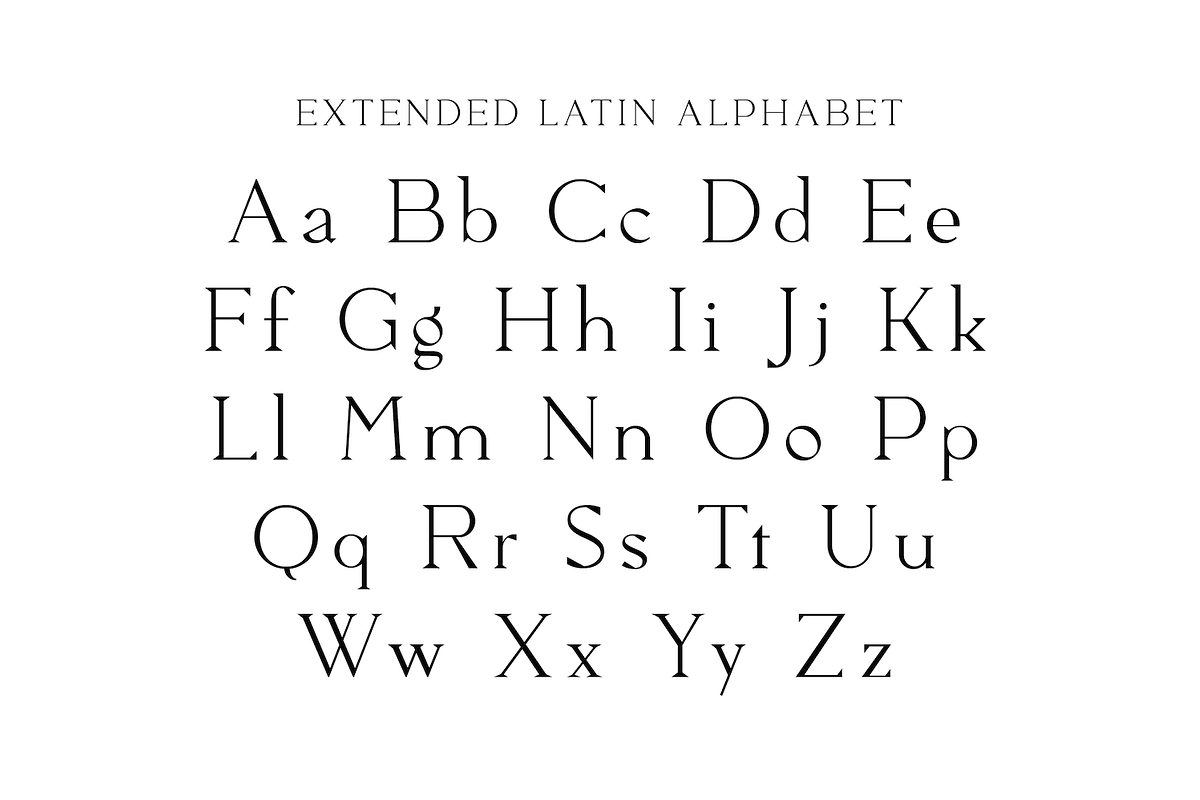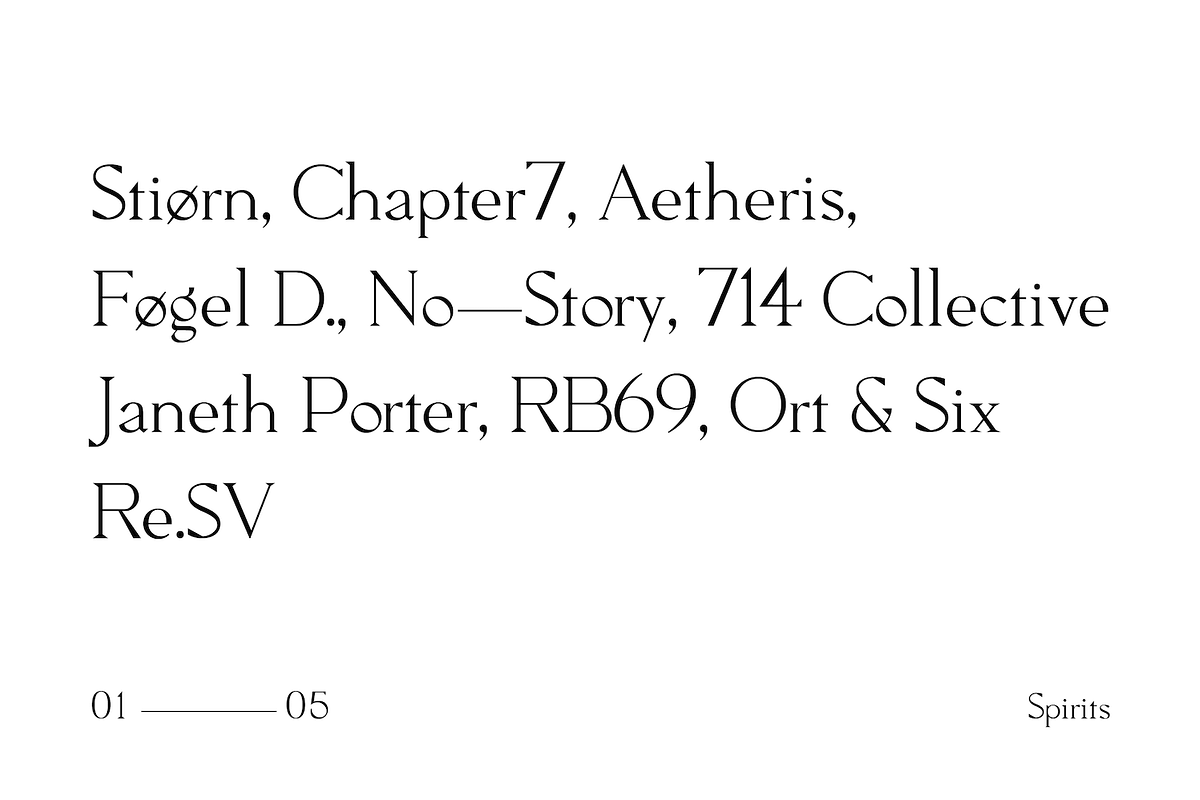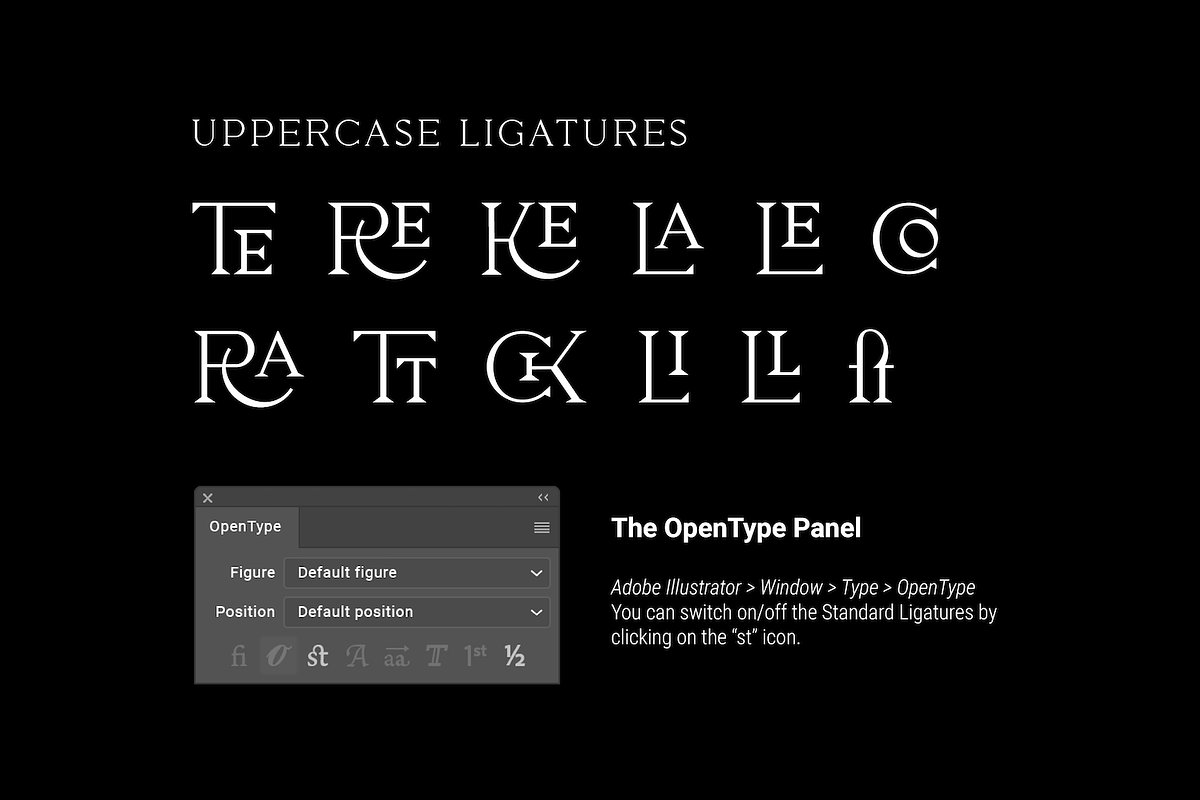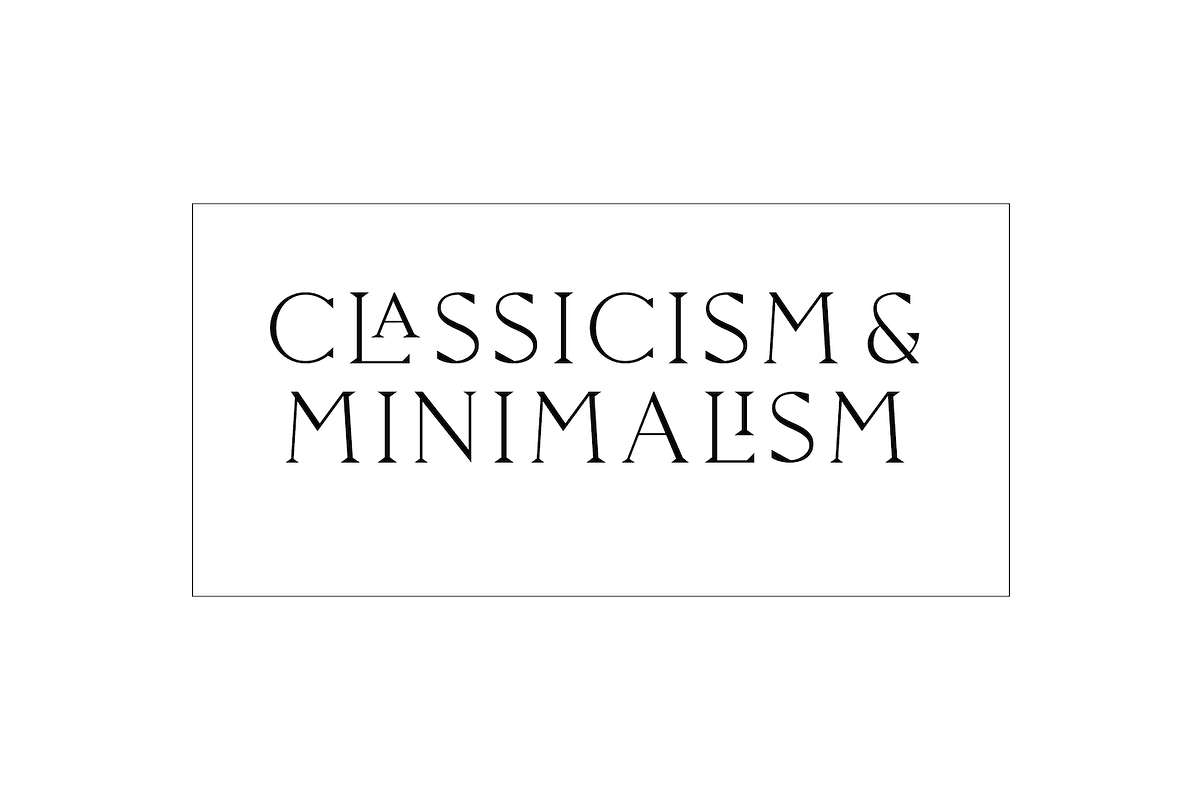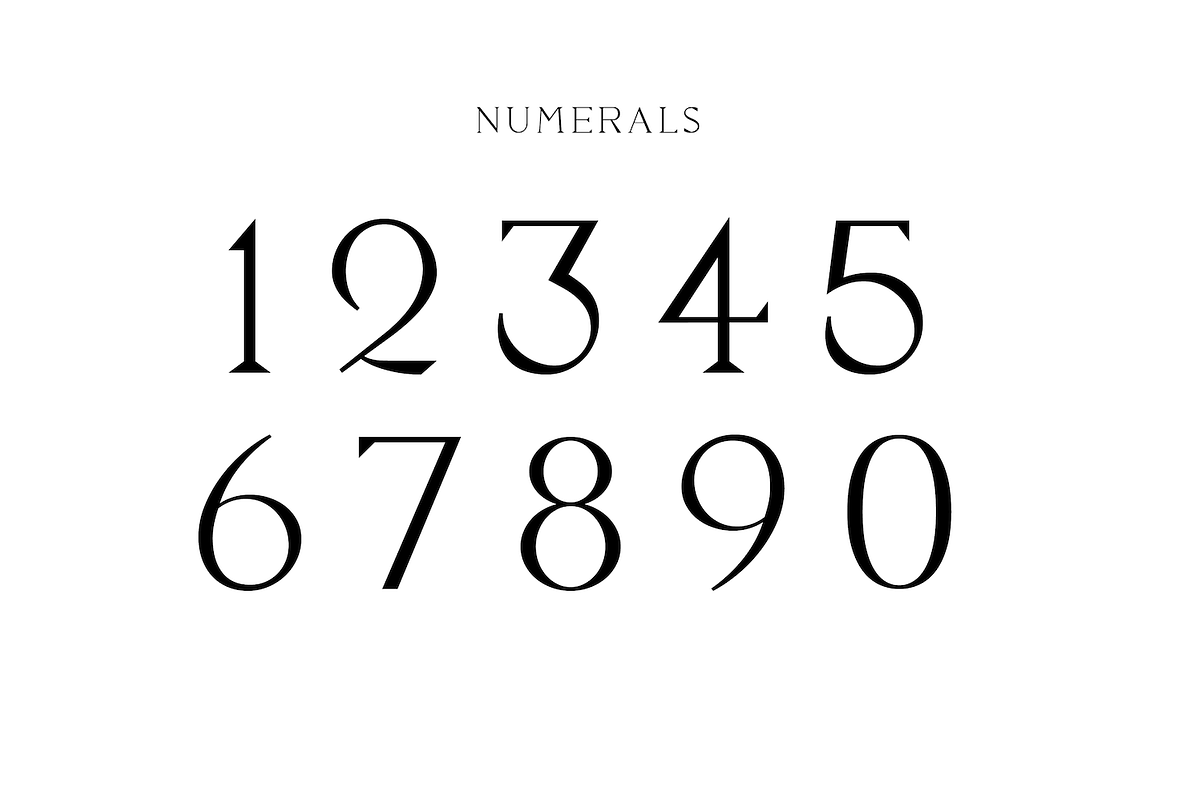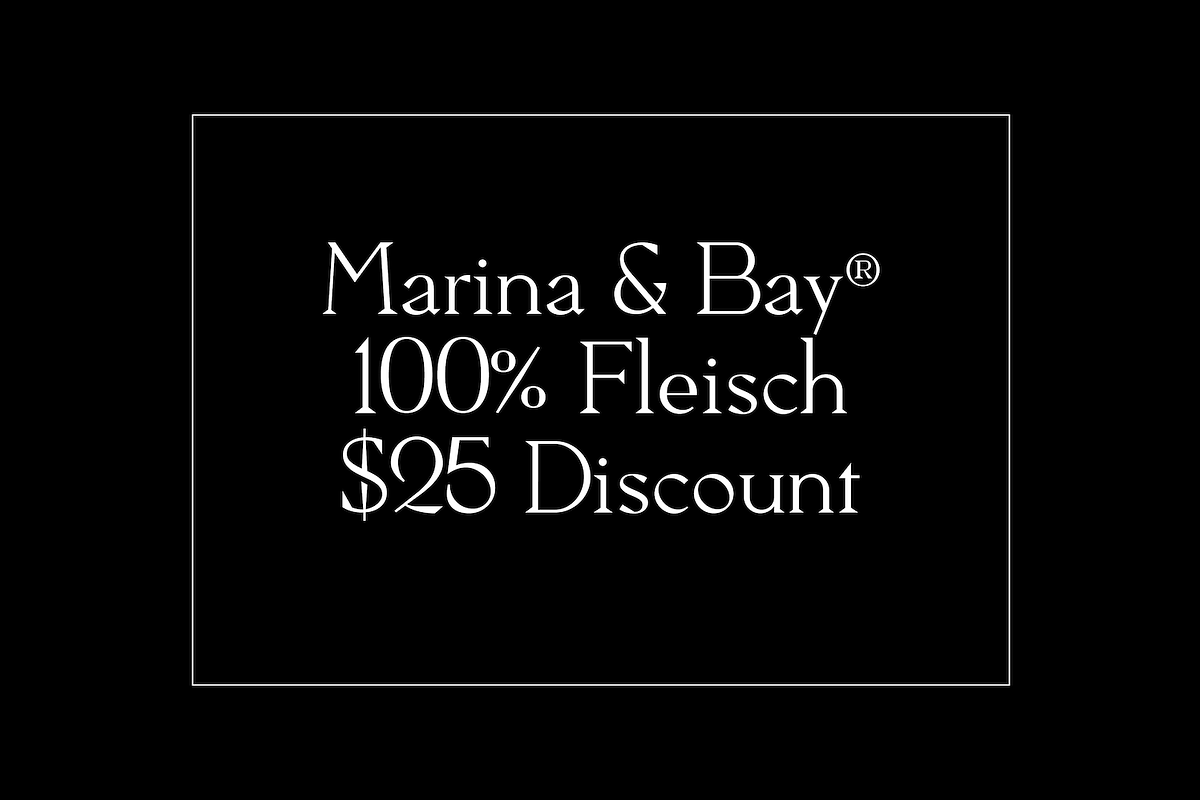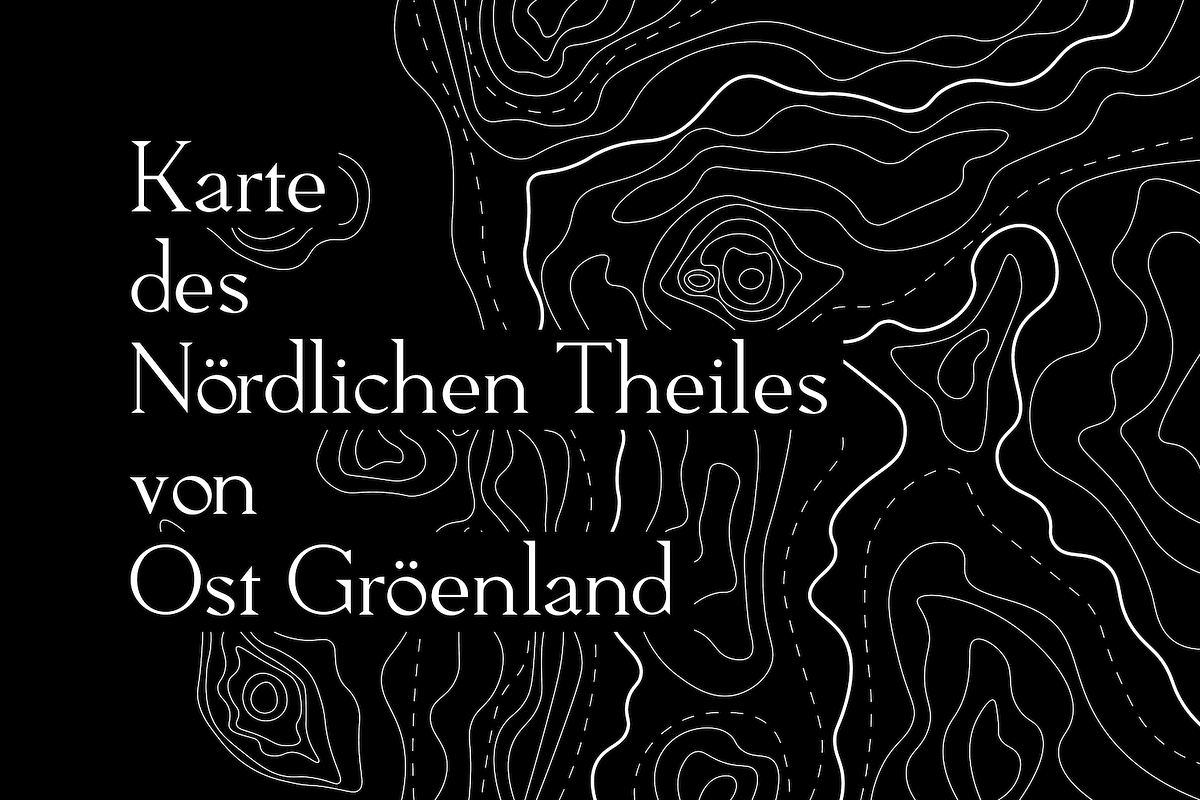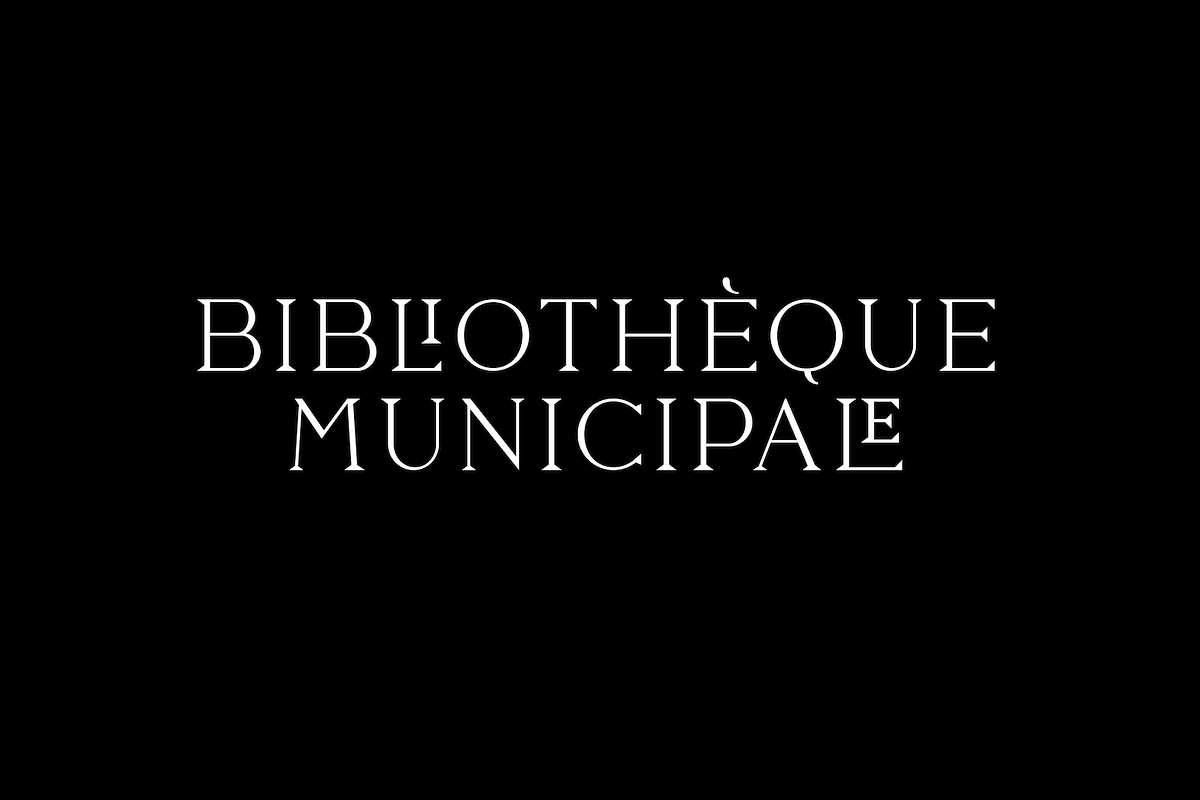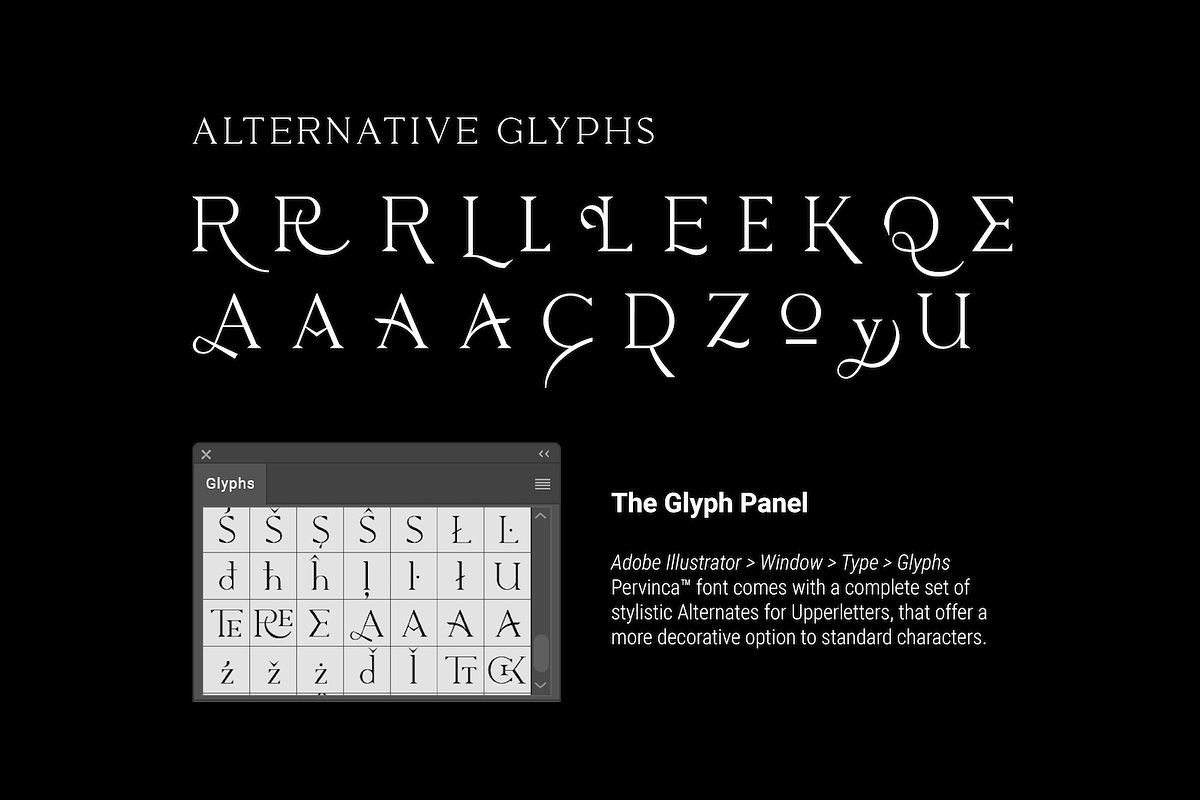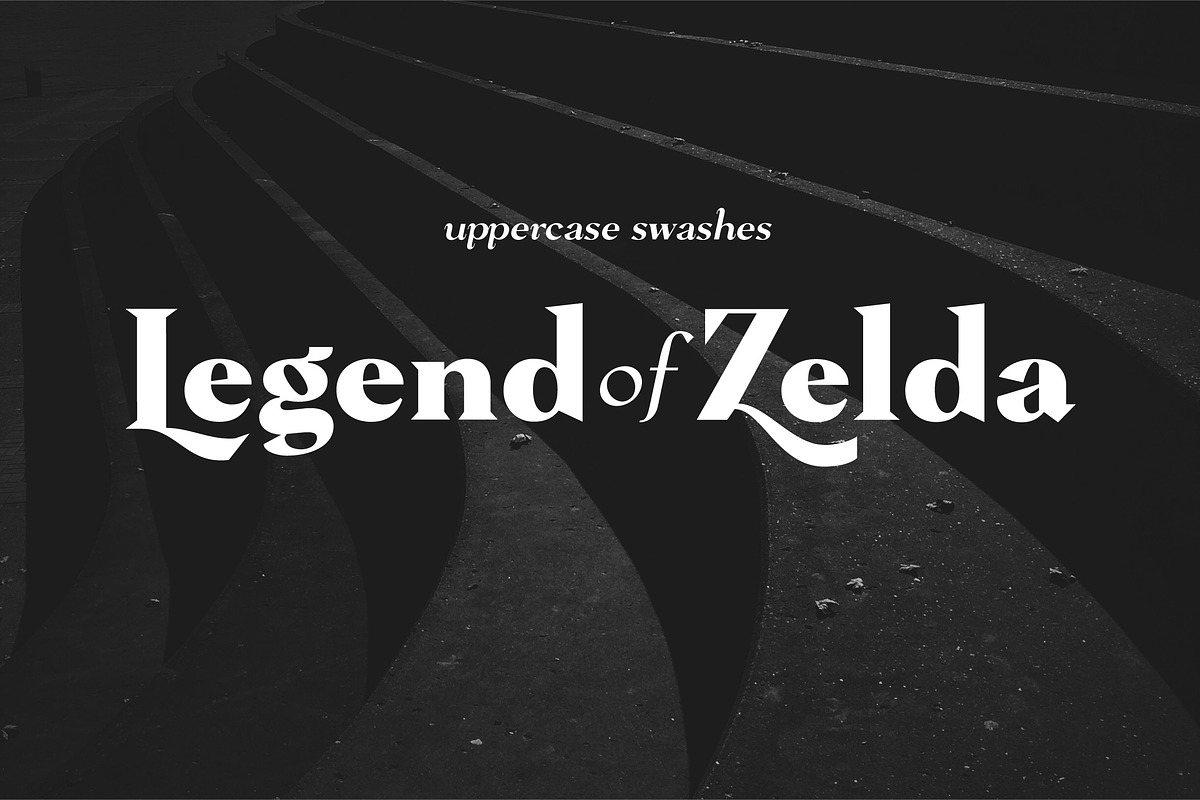
Pervinca Family
New Release Pervinca Family™ is a sharp and geometric Didone typeface.
The glyph set is inspired by concepts such as elegance, simplicity. The letterforms are based on a strictly geometric grid for pixel perfection. A remarkable feature of this font is the triangular serif.
Pervinca™ began its life as a research into collective French Style. The geometric approach to the glyph construction make it unique and suitable for text & display. Details: over 350 characters including +80 Standard & Discretionary ligatures, stylistic alternates & Uppercase Swashes, manually edited kerning and Opentype features.